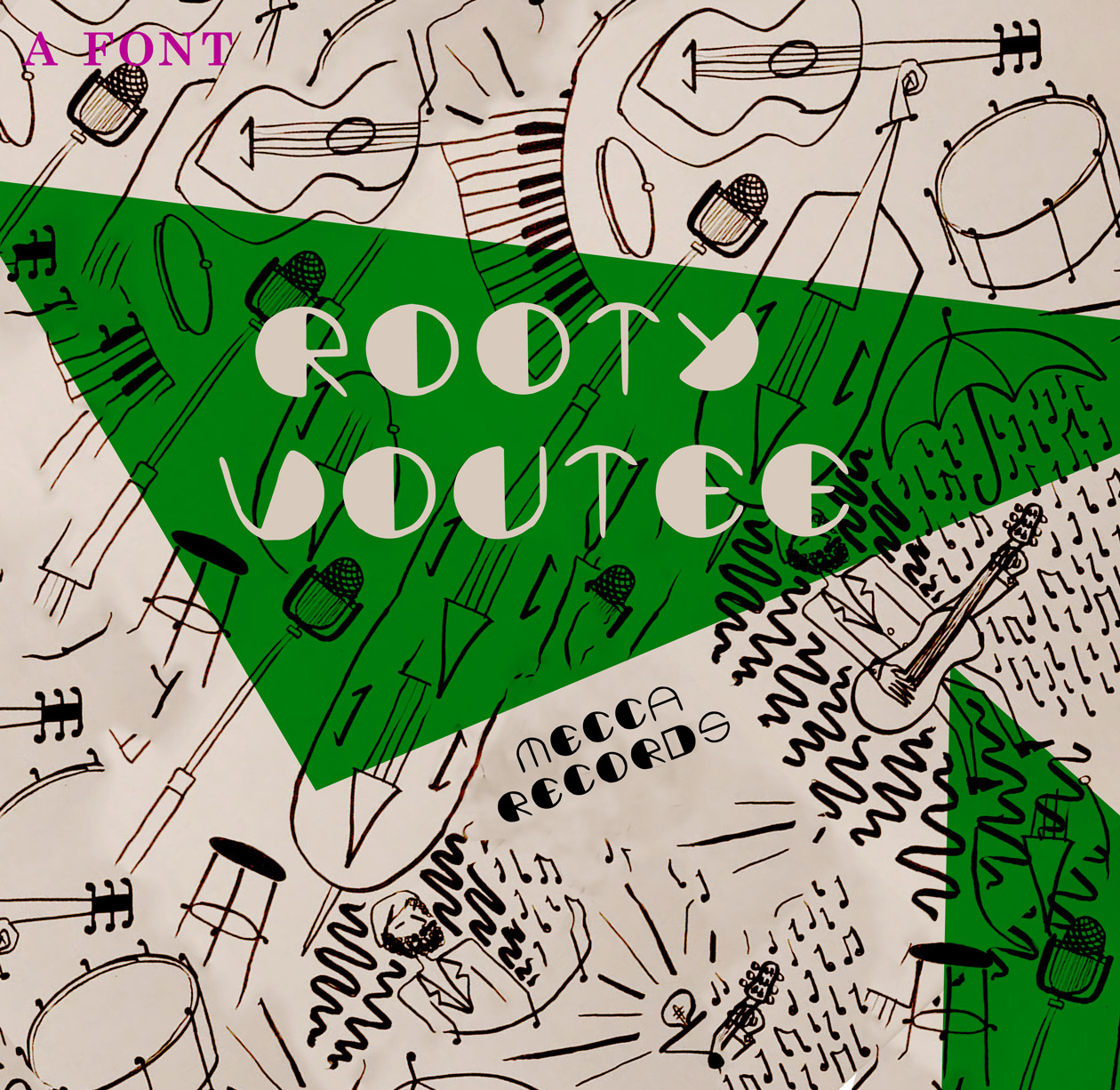
Rooty Voutee Novelty Jazz Font
This all-caps font is inspired by early jazz legend Slim Gaillard with expressive and timeless forms, who used colorful language and inventive words. Just like Slim, the font is friendly and commands attention with round structures and contrasting fills and strokes in a personal style.
This font is super versatile by adding character where it counts. Works wonders as a zine or comic font, for reliving a Gatsby party, games, EDM, or postmodernist attitude. Font includes English letterset only and has limited to the following punctuation: ()+.